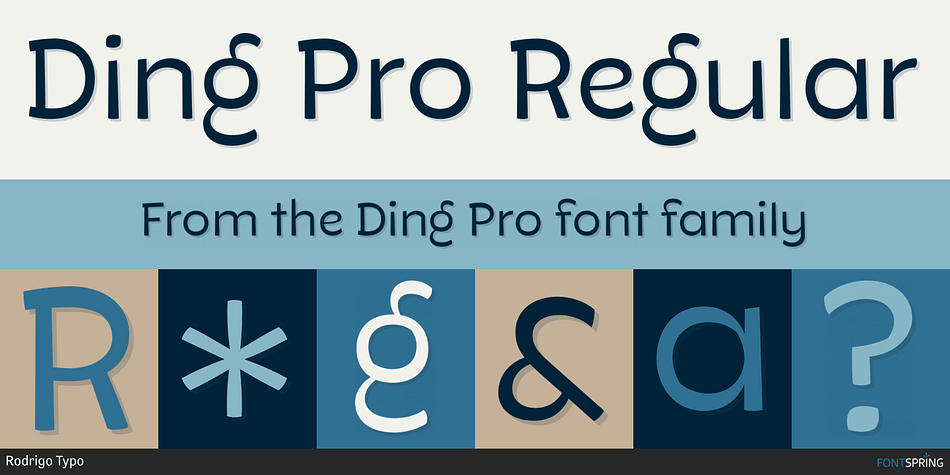
Ding Pro Regular
Designed by Andrey Kudryavtsev, Rodrigo Salas and Franco Hernández, Ding Pro is a hand drawn, stencil and dingbat font family. This typeface has thirteen styles and was published by Rodrigo Typo.
Ding pro! is a typographic family that contains many alternatives from ligatures to styles like Rough, Hand, UltraLight-Heavy, special for children-Youth titles.